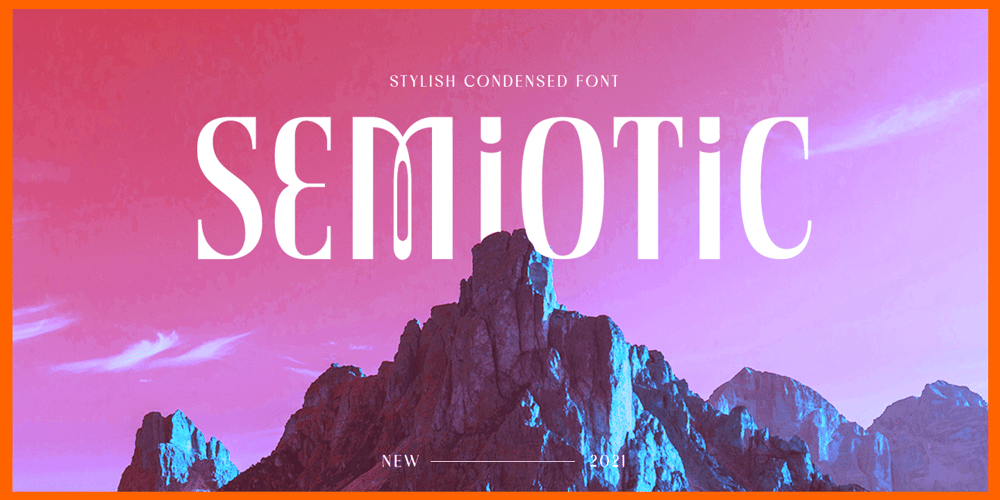
Semiotic Font Family was designed by Hendry Juanda and published by Letterhend. Semiotic contains 1 styles and family package options. Semiotic is a stylish condensed font. The uniqueness of this font is have the same size of uppercase and lowercase, so you can playaround to create a nice wording with this font. Very suitable for logo, headline, tittle, and the other various formal forms such as invitations, labels, logos, magazines, books, greeting / wedding cards, packaging, fashion, make up, stationery, novels, labels or any type of advertising purpose.Features :uppercase and lowercasenumbers and punctuationmultilingualligaturesalternatesPUA encodedWe highly recommend using a program that supports OpenType features and Glyphs panels like many of Adobe apps and Corel Draw, so you can see and access all Glyph variations. How to access opentype feature : letterhend.com/tutorials/using-opentype-feature-in-any-software/